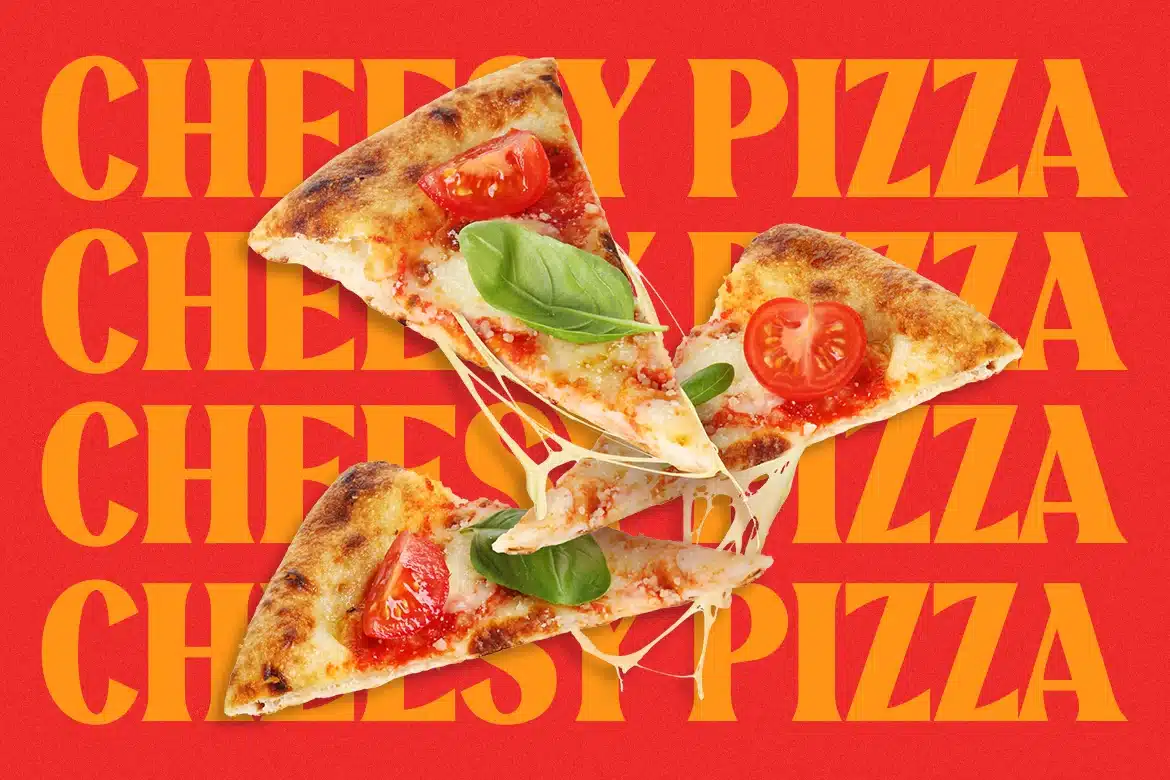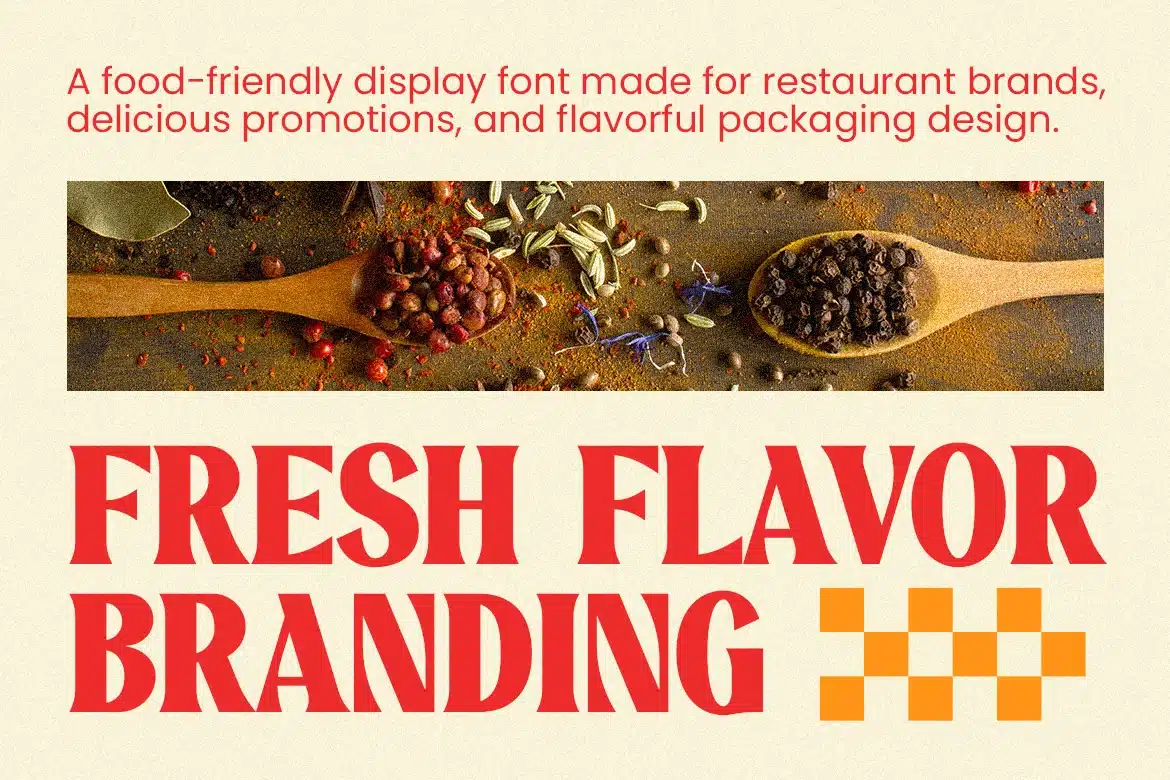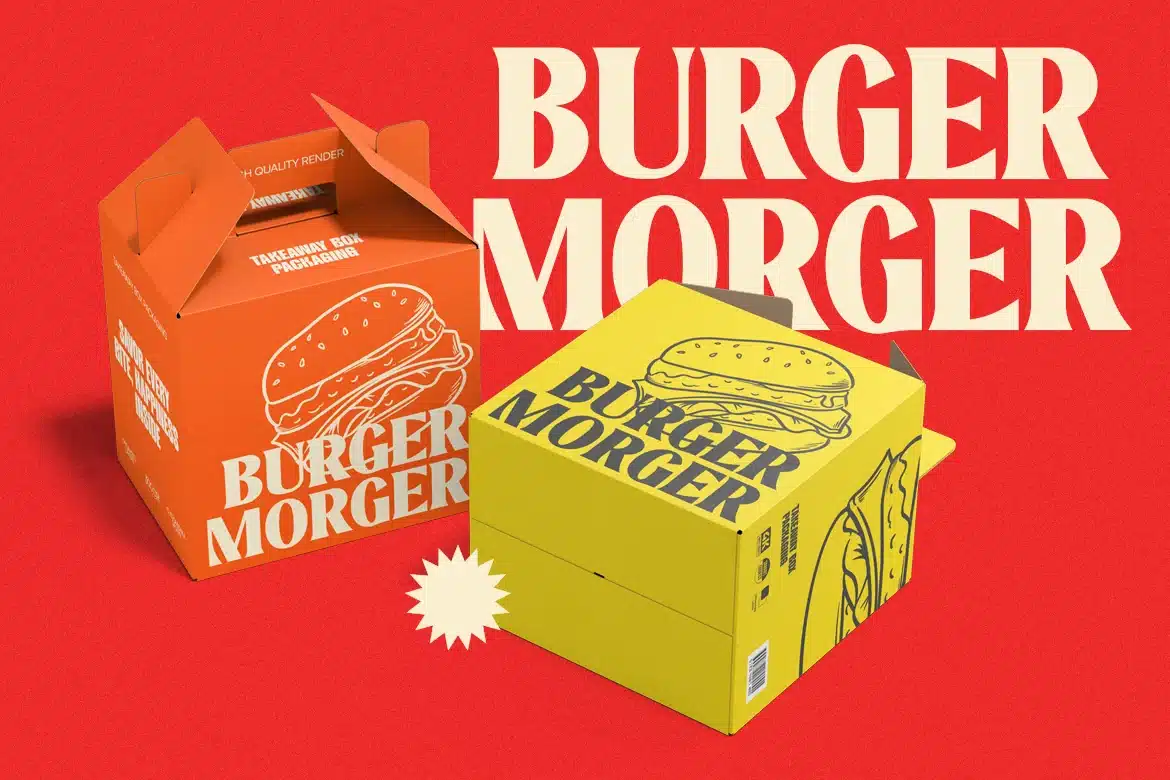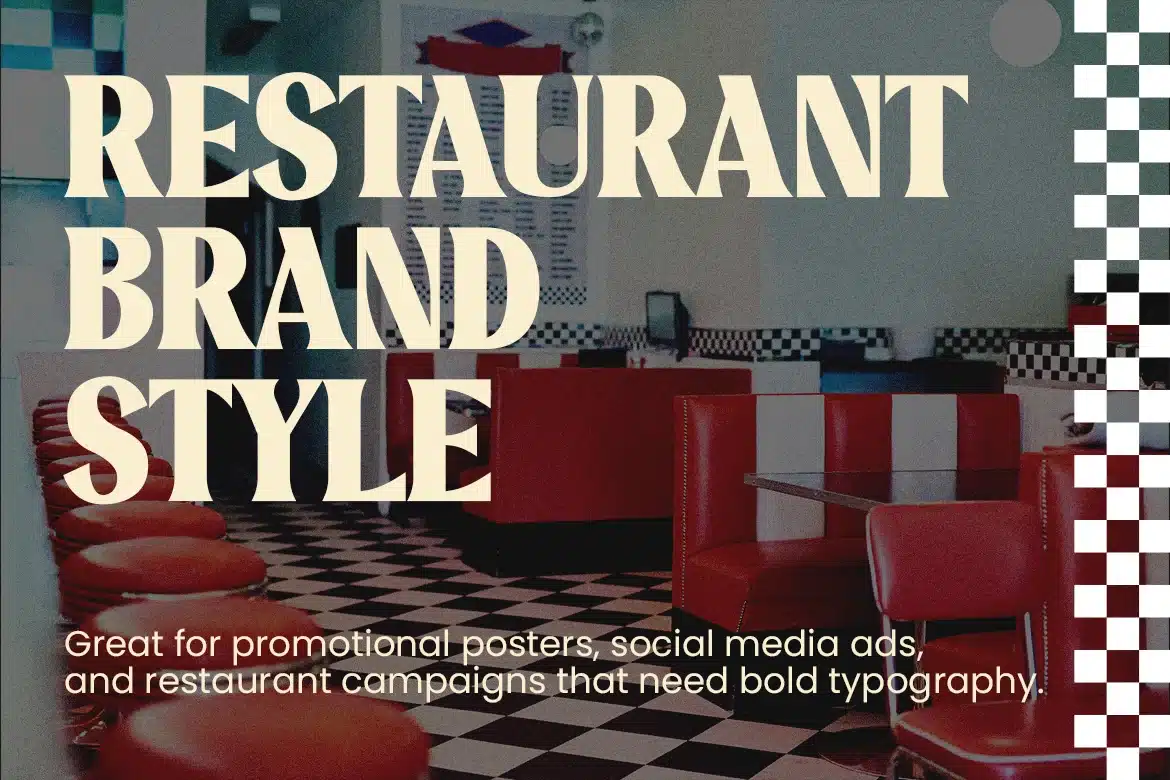
Poggio – Vintage Food Branding Font
Poggio is a bold vintage-inspired display typeface designed for restaurant branding and food packaging, featuring strong serif letterforms, confident vertical strokes, and balanced proportions that create a rich and flavorful visual identity. The letter structure blends classic signage aesthetics with modern readability, giving headlines a distinctive and appetizing character.
Its bold shapes and clear structure make it highly effective for restaurant logos, burger shop branding, menu design, food packaging, and promotional posters. The typography naturally evokes a warm, delicious, and inviting atmosphere, perfect for brands that want their visuals to feel memorable and flavorful. With multilingual support for 67 languages, Poggio also works well for international restaurant brands, food campaigns, and global culinary marketing.
Food branding requires typography that can instantly communicate taste, personality, and appetite appeal. Poggio delivers that visual flavor through bold lettering that stands out on menus, restaurant signage, packaging, posters, and social media promotions.
From burger packaging and pizza posters to restaurant identity systems and food truck branding, Poggio helps designers create typography that feels rich, confident, and full of character—perfect for capturing attention in busy food marketplaces.
Bold Vintage Letterforms
- Inspired by classic restaurant signage and food branding
- Strong strokes create high-impact headlines
Perfect for Food Branding
- Ideal for restaurants, burger brands, pizza shops, and snack packaging
- Excellent for menus, labels, and promotional graphics
Clear and Structured Design
- Balanced proportions improve readability in large display sizes
- Works well for posters, branding, and packaging
Strong Visual Personality
- Adds warmth and character to culinary design projects
- Supports 67 languages, making it suitable for international brands